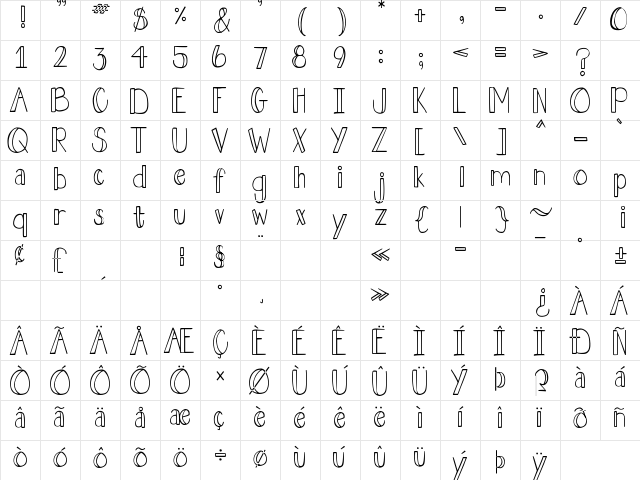
DJB Holly Jolly Regular
Design Context for DJB Holly Jolly Typeface
DJB Holly Jolly is a composed and adaptable typeface that performs quietly and consistently across a wide range of design contexts.